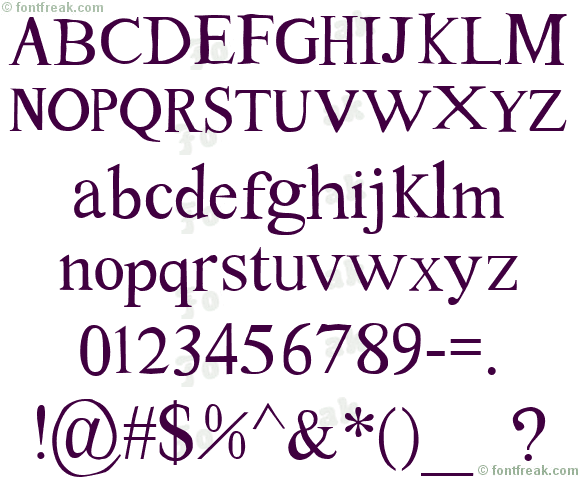
Tom's New Roman
About Tom's New Roman
Tom's New Roman is a unique serif font designed by Divide By Zero, blending classic elements with modern flair. This font features a traditional serif style, characterized by its elegant, refined strokes and distinctive decorative elements. The stroke weight is consistent, offering a balanced contrast that enhances readability. The spacing between characters is thoughtfully designed to ensure clarity, making it suitable for various applications.
This versatile font shines in specific use cases, such as wedding invitations, where its classic feel adds a touch of sophistication. It is also ideal for movie posters, where the elegant serifs can convey a sense of drama and creativity. Additionally, Tom's New Roman fits perfectly on restaurant menus, giving a refined appearance that complements gourmet cuisine. It can be effectively used for branding materials, targeting small business owners who seek a professional yet approachable aesthetic. Content creators will also appreciate its adaptability for blog headings and social media graphics, ensuring their designs stand out.
The target audience for Tom's New Roman includes graphic designers looking for a timeless typeface, small business owners aiming to elevate their brand identity, and content creators who want to enhance their visual storytelling. This font offers a unique blend of tradition and innovation, making it a valuable addition to any designer's toolkit.
What sets Tom's New Roman apart is its ability to combine familiarity with distinctive character. While it nods to traditional serif fonts, its unique design elements offer a fresh perspective that can elevate any project. With Tom's New Roman font free download available, designers can easily incorporate this elegant typeface into their work, enhancing the overall aesthetic and impact of their designs.